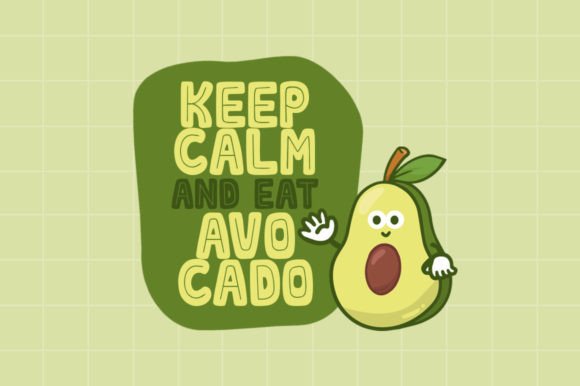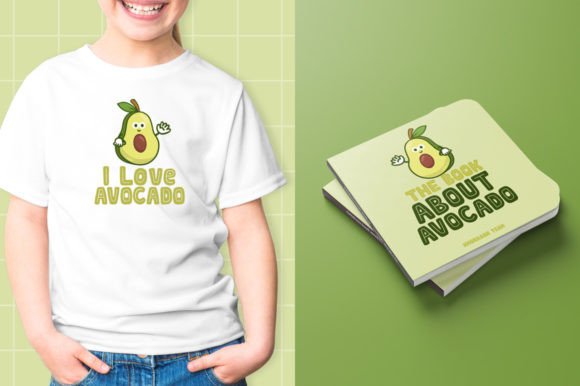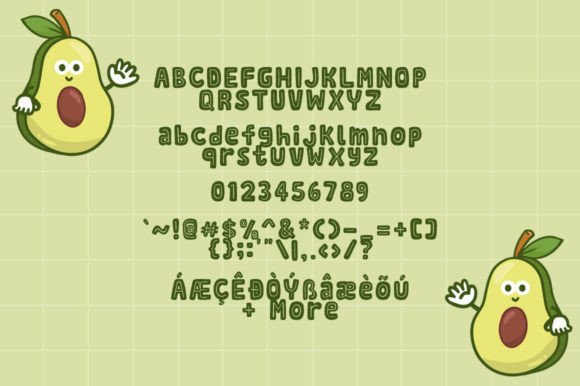
Introducing Avocado Days Font: The Perfect Playful Companion for Your Designs
Are you tired of using the same old fonts for your designs? Do you want to add a playful touch to your creations? Look no further than Avocado Days Font! This fun and cool display font is perfect for designers and crafters who want to bring a smile to their audience’s faces. In this article, we’ll dive into the world of Avocado Days Font and explore its features, uses, and benefits.
What is Avocado Days Font?
Avocado Days Font is a modern, playful, and highly versatile display font. Its unique design makes it an excellent choice for a wide range of projects, from cartoon-related designs and children’s games to posters, flyers, and social media graphics. The font’s fun and quirky vibe is sure to capture the attention of your audience and leave a lasting impression.
Key Features of Avocado Days Font
- Playful and Fun Design: Avocado Days Font boasts a unique and playful design that is sure to add a touch of whimsy to your creations.
- Highly Versatile: This font is perfect for a wide range of projects, from digital designs to print materials.
- Easily Readable: Despite its playful design, Avocado Days Font is easily readable, making it perfect for headlines, titles, and short paragraphs.
- Multilingual Support: This font supports multiple languages, making it a great choice for designers who work with international clients.
Uses of Avocado Days Font
Avocado Days Font is an incredibly versatile font that can be used for a wide range of projects, including:
- Cartoon-Related Designs: The font’s playful design makes it perfect for cartoon-related designs, such as character designs, comics, and animated videos.
- Children’s Games and Education: Avocado Days Font is an excellent choice for children’s games, educational materials, and activity sheets.
- Posters and Flyers: The font’s bold and playful design makes it perfect for posters and flyers that require attention-grabbing headlines.
- Social Media Graphics: Avocado Days Font is a great choice for social media graphics, such as Instagram posts, Facebook headers, and Twitter graphics.
Benefits of Using Avocado Days Font
Using Avocado Days Font in your designs comes with a range of benefits, including:
- Unique and Playful Designs: The font’s unique design will help your creations stand out from the crowd and capture the attention of your audience.
- Increased Engagement: The playful and fun design of Avocado Days Font is sure to increase engagement and encourage your audience to interact with your content.
- Time-Saving: With Avocado Days Font, you can create professional-looking designs in no time, saving you time and effort.
- Cross-Platform Compatibility: The font is compatible with a wide range of devices and platforms, ensuring that your designs look great everywhere.
Tips for Using Avocado Days Font
To get the most out of Avocado Days Font, here are some tips to keep in mind:
- Use it for Headlines and Titles: The font’s bold design makes it perfect for headlines and titles.
- Experiment with Colors: Avocado Days Font looks great in a range of colors, so don’t be afraid to experiment and find the perfect color scheme for your design.
- Pair it with Other Fonts: The font pairs well with other fonts, so feel free to experiment with different font combinations to create a unique look.
Avocado Days Font is a fun and cool display font that is perfect for designers and crafters who want to add a playful touch to their creations. With its unique design, highly versatile nature, and range of benefits, this font is sure to become a staple in your design toolkit. So why wait? Download Avocado Days Font today and start creating playful and engaging designs that will leave a lasting impression on your audience!